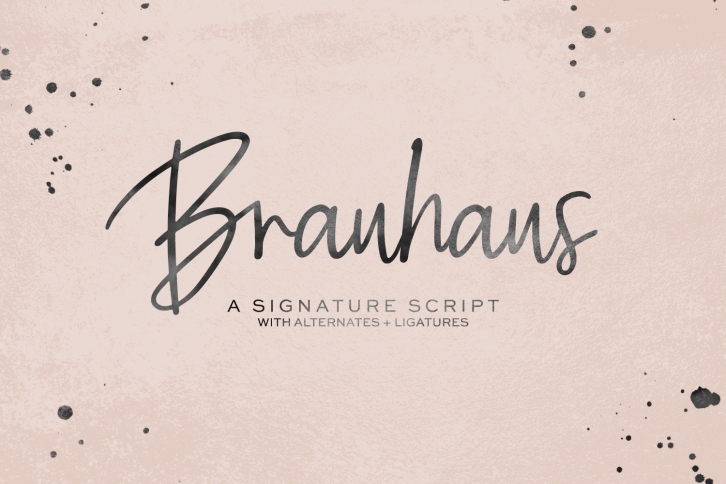
Brauhaus Signature Script is a gorgeous font that was realeased on January 13, 2020. The font can be used in many style contexts and design environments. Perfect for invitations, magazines, websites, logos, and more! It was designed by BeckMcCormick and the file size is 4.61 MB. Thanks for checking out this font!